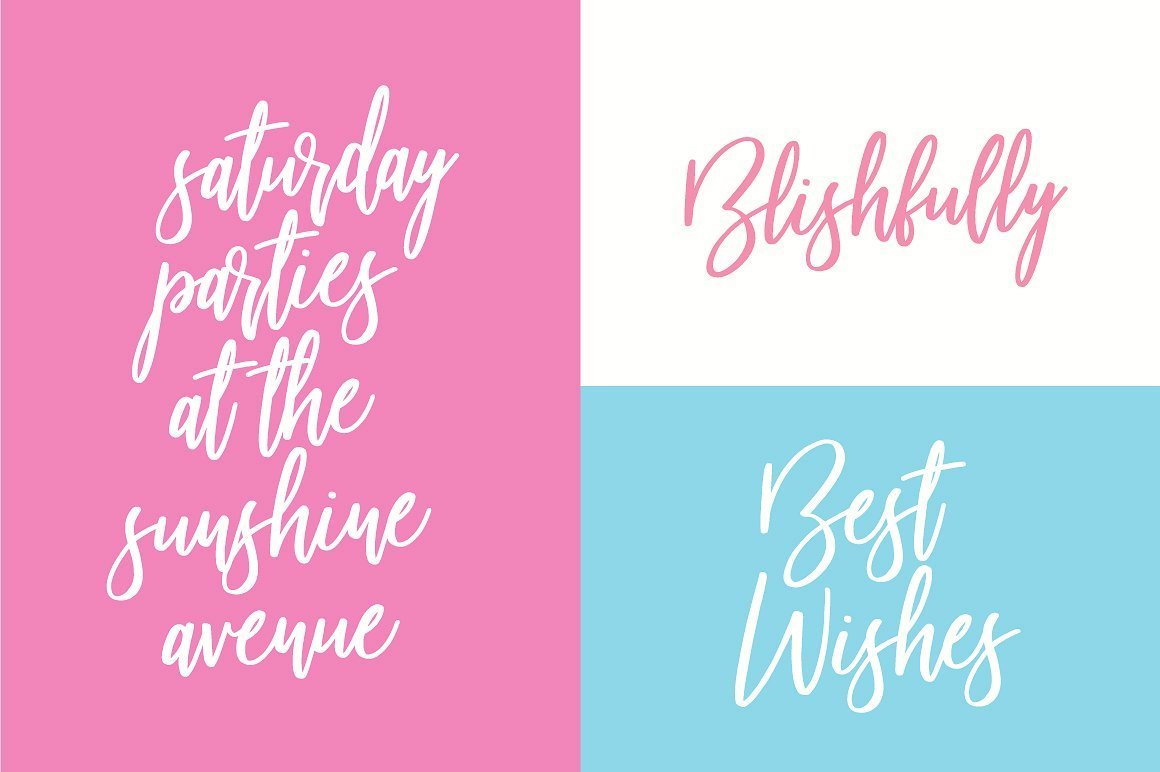
Free Beautiful Bloom Brush Font
Download and enjoy this free beautiful bloom – brush font. Cool typeface to showcase your designs in a modern way. Go give some love to Pixelify for creating this top-notch font. Easily amaze your audience with this cool font and make your graphic designs pop up from the crowd.